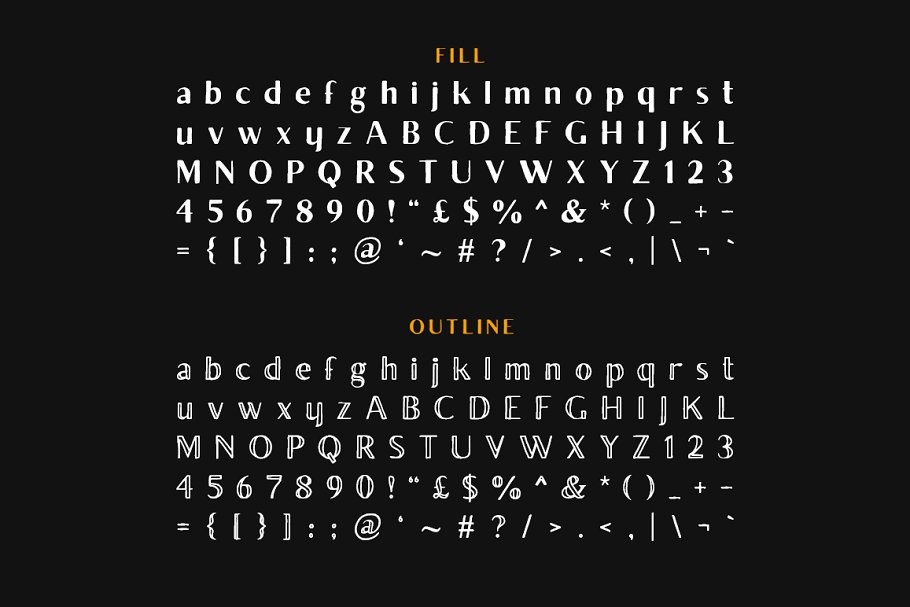
Introducing the captivating and versatile Brixton Sans font collection, designed by the talented Tom Chalky. This hand-drawn sans-serif family is a must-have for anyone looking to add a touch of elegance and creativity to their designs.
Originally created in 2012, Brixton Sans has now been expanded to include a light and bold weight, as well as an outlined alternative that perfectly complements the other styles. This means you have even more options to play with and create stunning typography that stands out from the crowd.
One of the standout features of Brixton Sans is its OpenType kerning, which automatically adjusts the spaces between the most popular letter combinations. This ensures a professional and polished finish, saving you time and effort in the design process.
But that's not all – along with the font styles, you'll also receive 16 decorative badges and shields to enhance your designs. These extras add a unique and eye-catching touch to your projects, making them truly one-of-a-kind.
And let's not forget that Brixton Sans is multilingual, allowing you to create stunning typography in various languages without any hassle. It's the perfect choice for designers who work on international projects or want to expand their creative horizons.